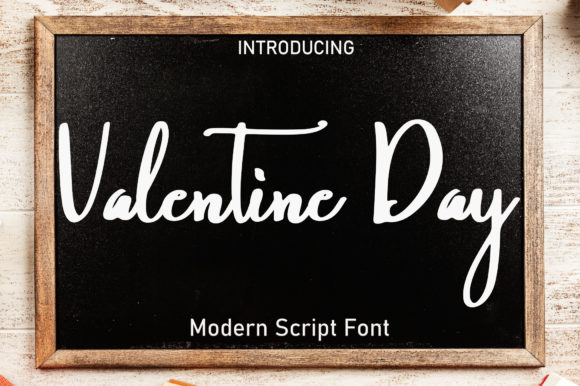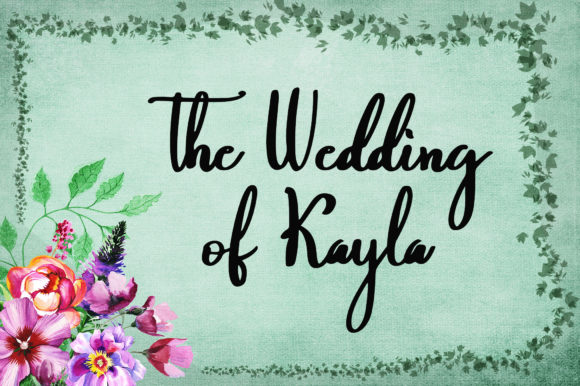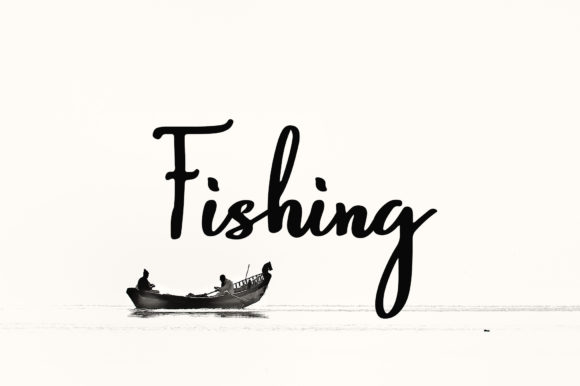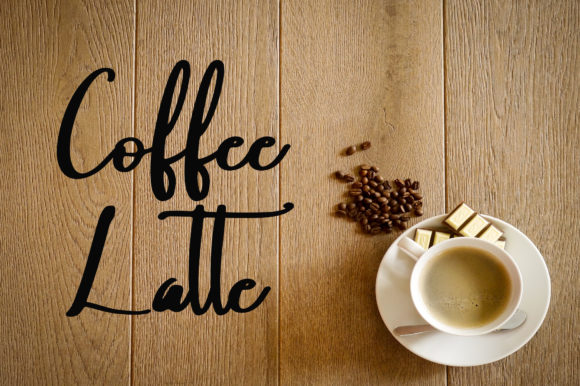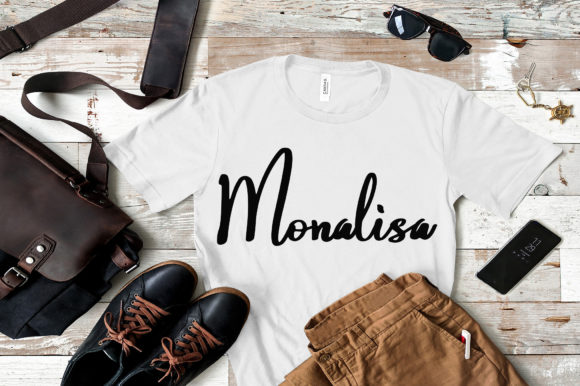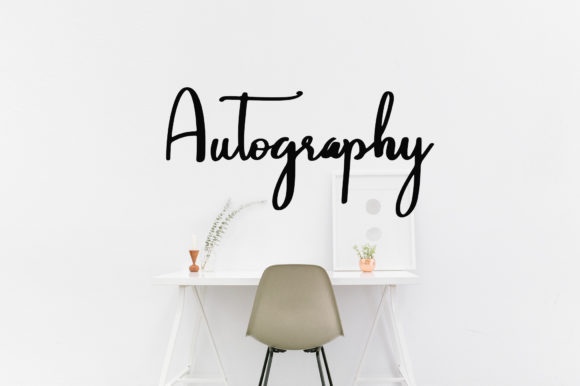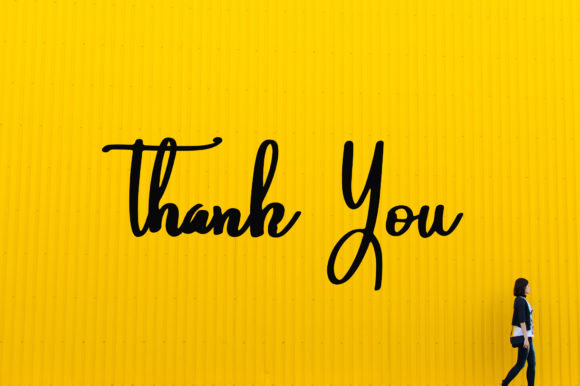
Valentine Day Font
About Valentine Day Font
Experience the heartfelt charm of Valentine Day, a delightful handwritten font that captures the essence of love and sweetness. With its endearing and authentic feel, Valentine Day is the perfect companion for creating a range of beautiful and heartwarming designs.
Infuse your wedding invitations with a touch of romance by using Valentine Day’s cute and playful characters. Each letter exudes a sense of warmth and tenderness, setting the perfect tone for a joyous celebration of love. Your stationary art will come to life as Valentine Day adds a unique and personal touch that resonates with emotion and authenticity.
Capture the attention of your audience on social media with eye-catching posts that stand out from the crowd. Valentine Day’s charming and approachable style draws viewers in and leaves a lasting impression, making your content truly unforgettable. Let your creativity run wild as you craft adorable greeting cards that convey heartfelt sentiments with a touch of whimsy.
Valentine Day is not just a font—it’s a tool for creating moments of connection and delight. Its genuine and heartwarming design lends a touch of magic to every project, whether it’s a wedding invitation, a stationary masterpiece, a captivating social media post, or a sweet greeting card.
Embrace the enchanting appeal of Valentine Day and watch as it transforms your designs into works of art that touch the hearts of those who experience them. This font is a celebration of love and creativity, and with Valentine Day as your muse, your design possibilities are truly endless.